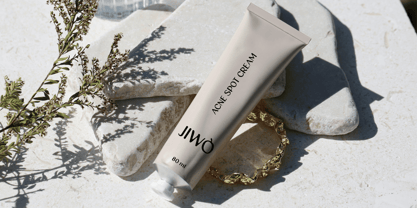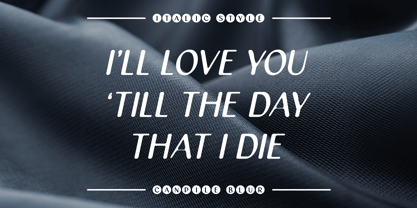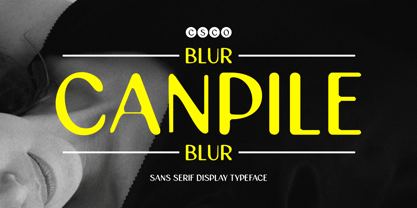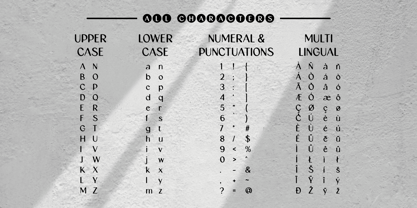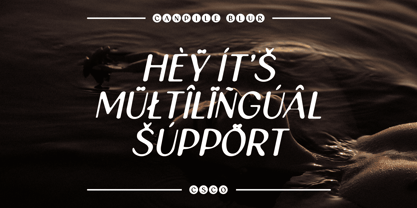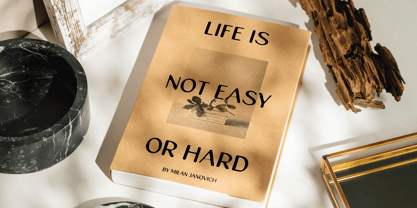
Canpile Blur
by Craft Supply Co
The Canpile Blur Font Family was designed by Trio Nazzar Saputra, Wahyu Hadi Yuana and published by Craft Supply Co. Canpile Blur contains 2 styles and family package options. More about this family
Canpile Blur: Where Elegance Meets Modernity
Elegant Retro Sans with a Blur Effect
Canpile Blur is a modern sans serif font with an elegant and retro feel, combined with a blur effect. It blends modern design elements with an elegant and retro classic touch, enhanced by a soft and appealing blur effect. This font is suitable for designs seeking a unique and classy yet modern look.
Elegant and Retro Design with a Modern Twist
The blur effect in Canpile Blur adds a modern touch to its elegant and retro design elements, creating a font that is both sophisticated and stylish. This blend of styles gives Canpile Blur a unique and appealing appearance, making it ideal for projects that require a touch of class and retro charm.
Luxurious and Classic
Proper use of Canpile Blur can provide a luxurious and classic feel while remaining relevant to contemporary trends. It is ideal for branding, exclusive prints, or editorial designs aiming to highlight an elegant and retro impression. Whether you’re designing a high-end fashion magazine or creating a sophisticated logo, Canpile Blur adds a touch of timeless elegance to any project.